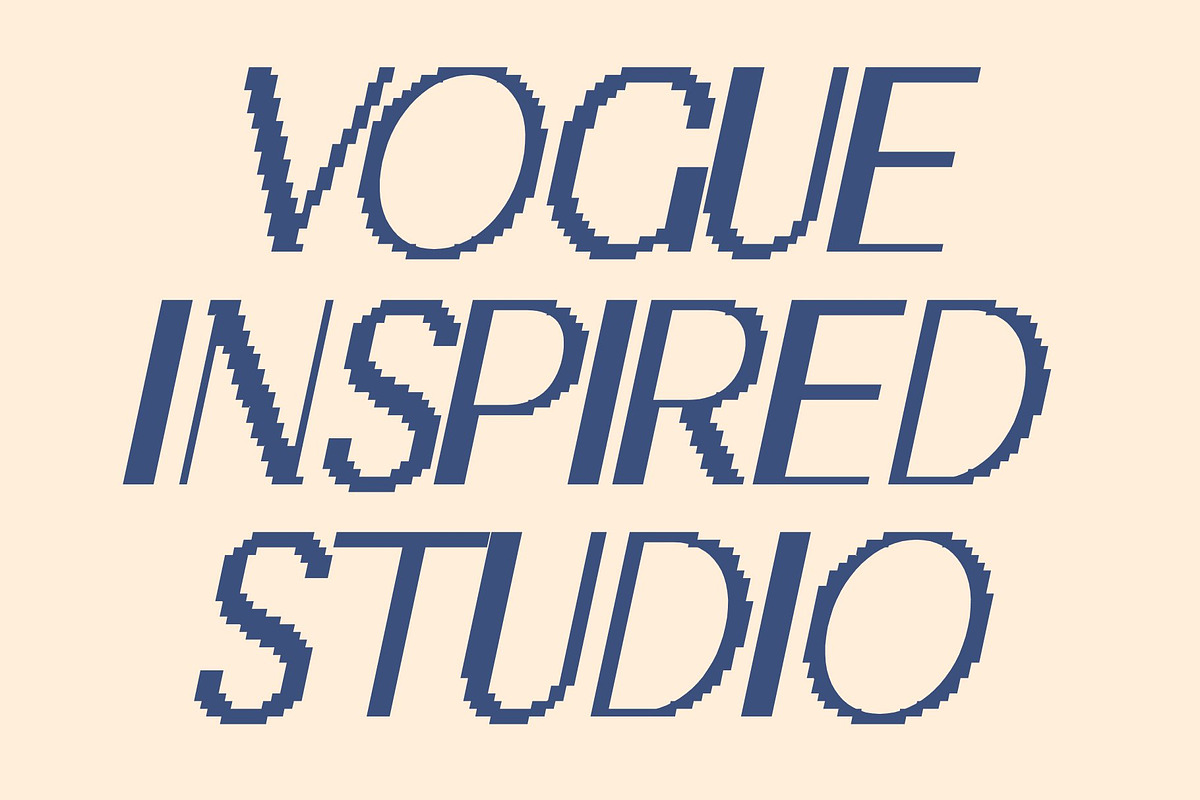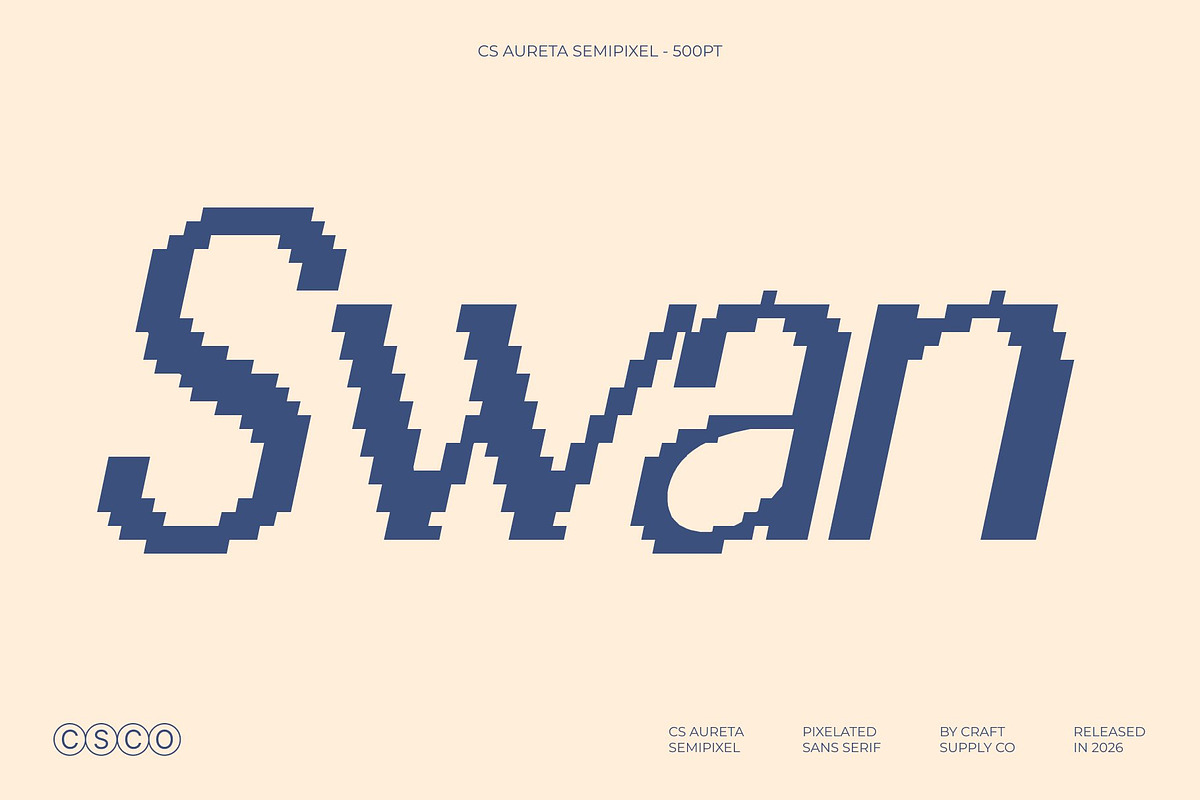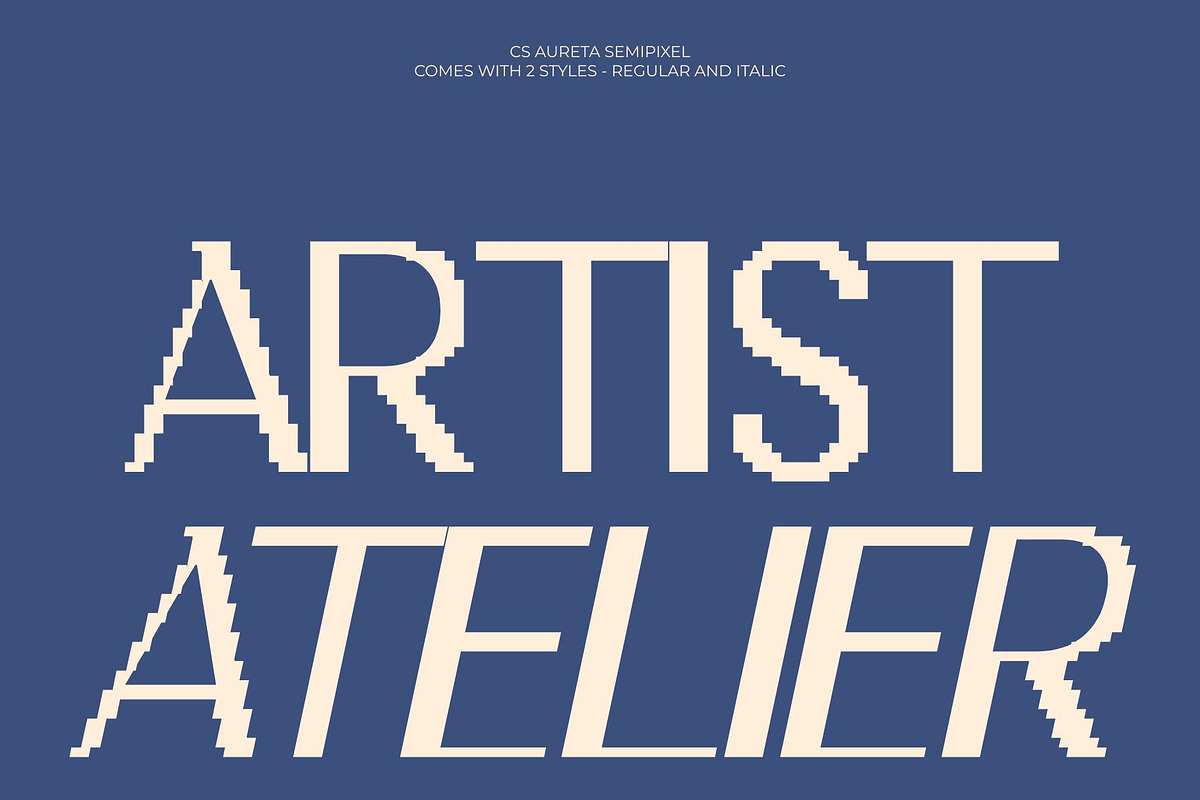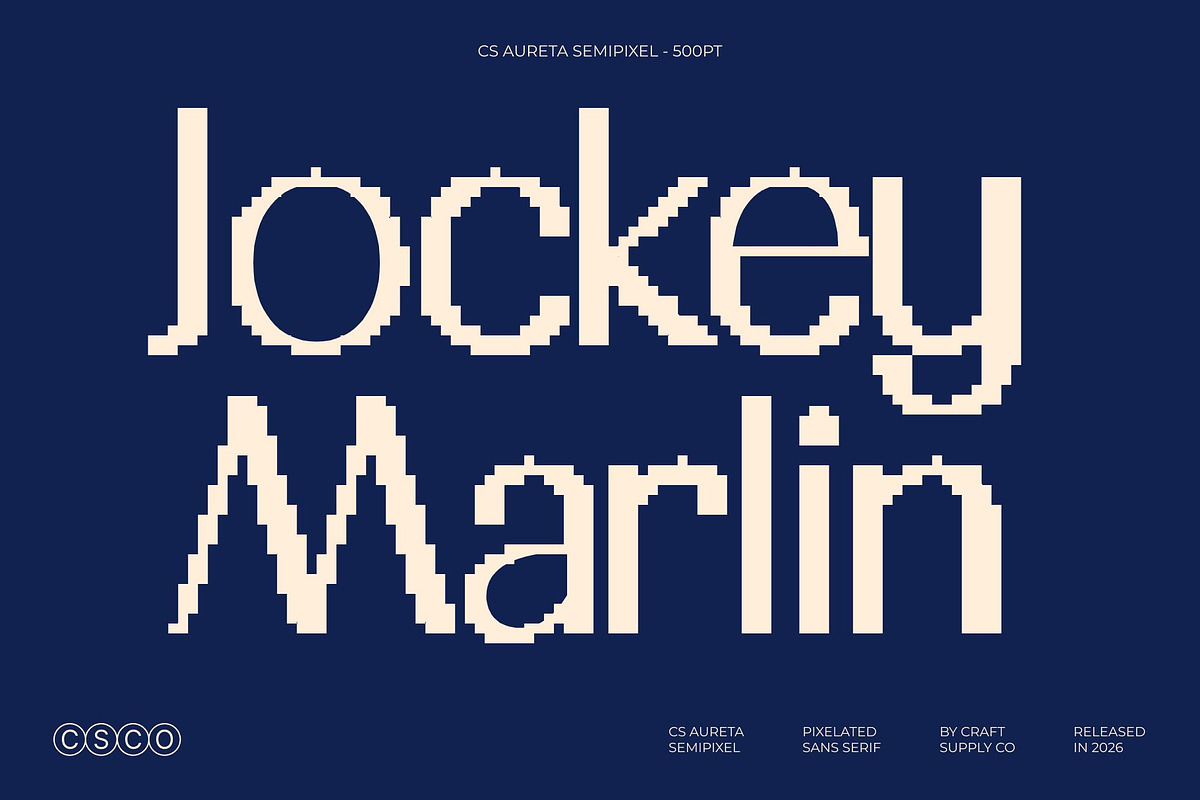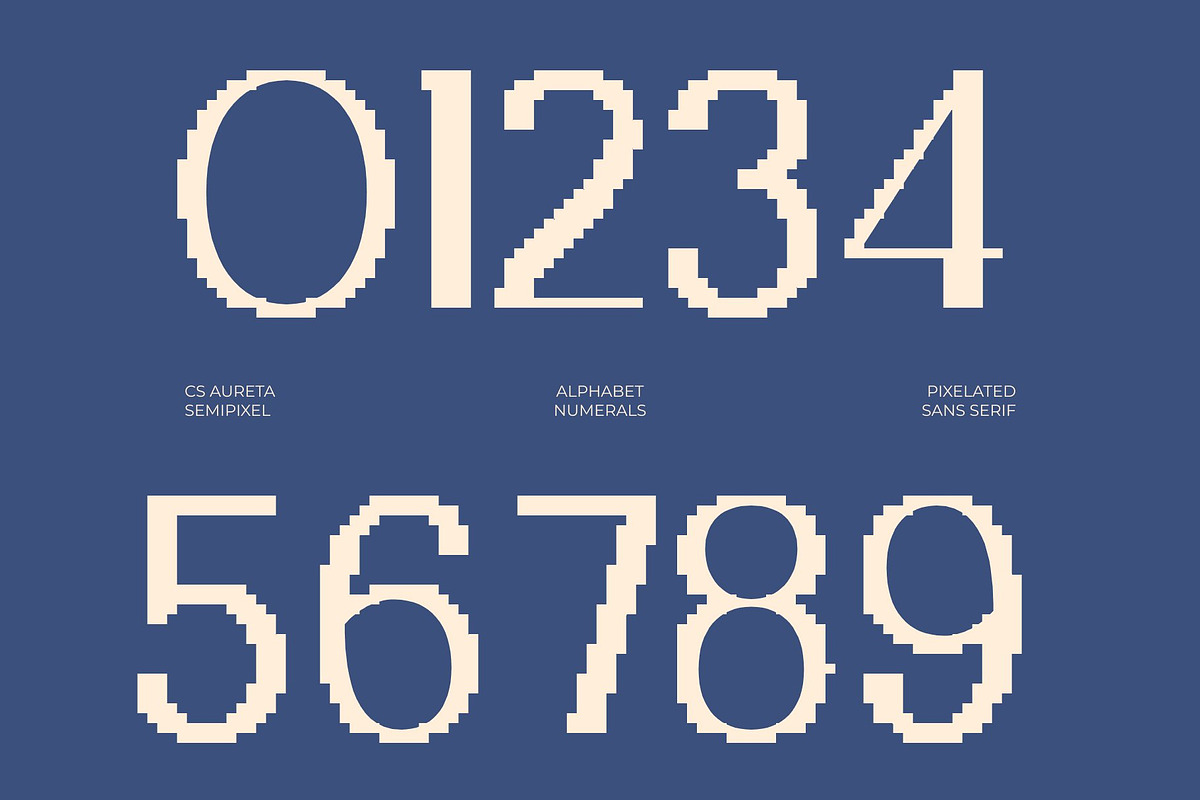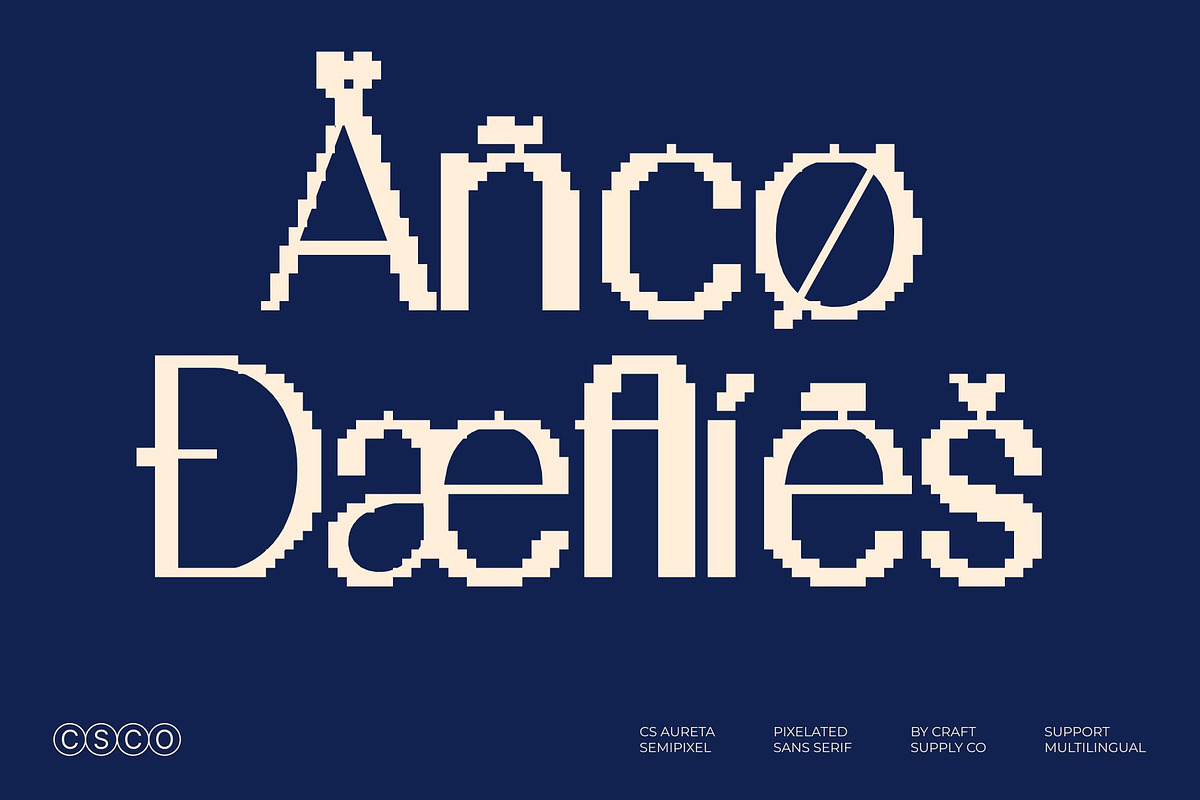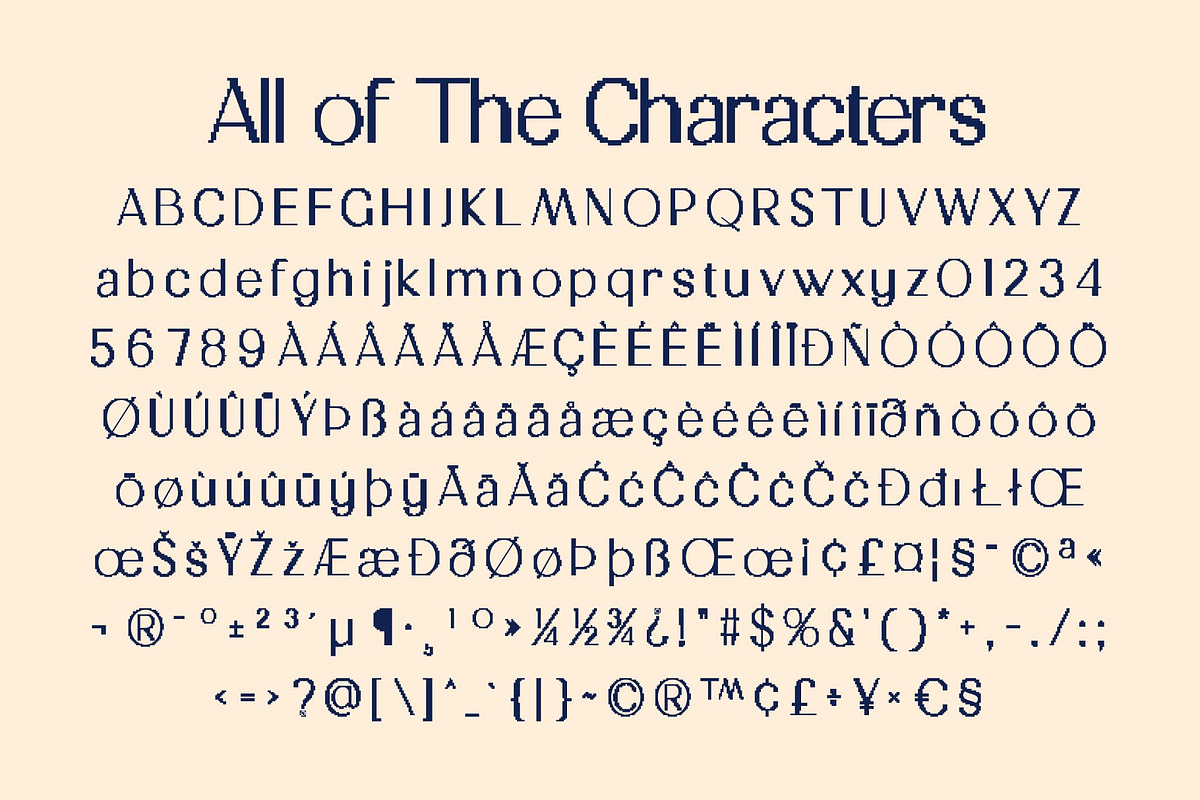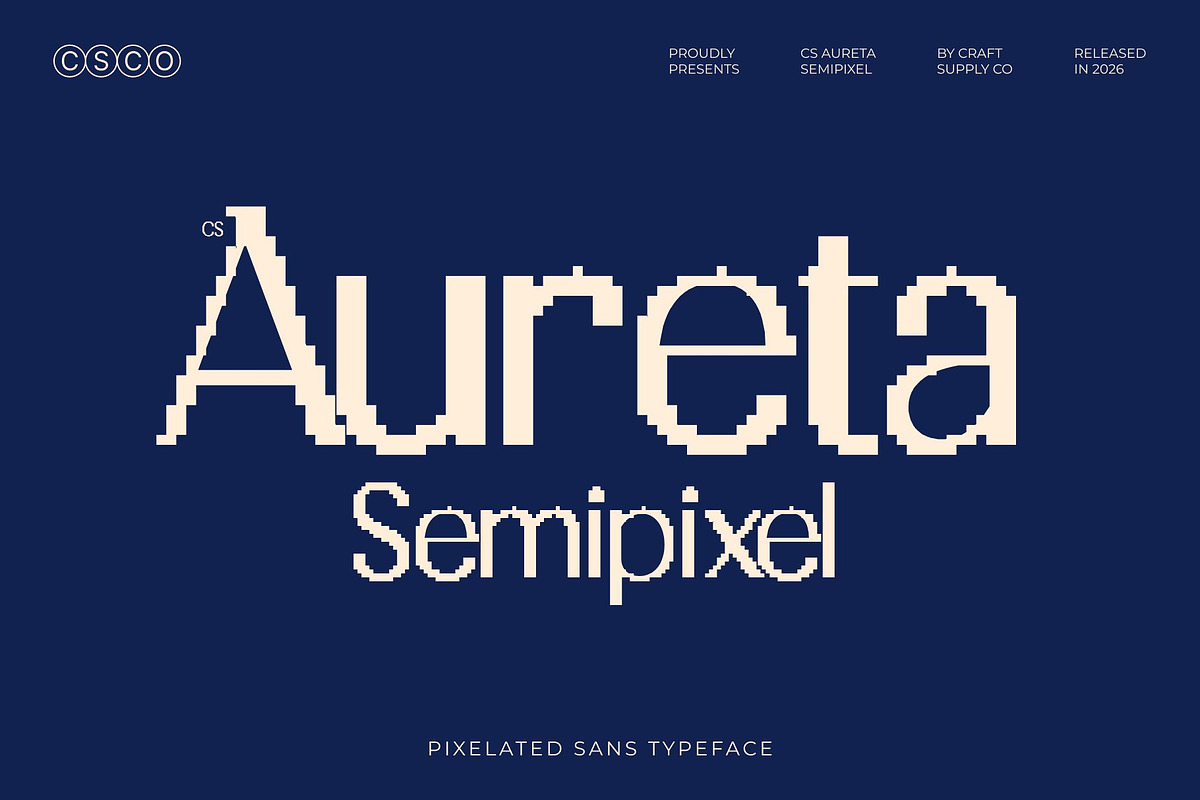
CS Aureta Semipixel
CS Aureta Semipixel – Modern Sans Serif Font: Where Futuristic Precision Meets Smooth Elegance
Pixel-Inspired Geometry with Elegant Modern Curves This is a modern sans serif font that combines pixel-inspired square forms with smooth curves and refined contemporary details. Unlike traditional rigid pixel fonts, its semi-pixel construction creates a softer and more elegant appearance while still preserving a subtle digital aesthetic. The result is a typeface that feels futuristic, sleek, and highly readable.
Minimalist High-Tech Style with Modern Sophistication This font delivers a clean and professional visual identity perfect for modern digital design. Its balanced forms create a stylish rhythm that feels both technical and approachable, making it ideal for projects that require a high-tech appearance without sacrificing visual comfort.
Smooth Readability with Contemporary Versatility This font maintains excellent readability across digital and print applications. The fusion of pixel-based structure and flowing modern details allows the font to perform beautifully in user interfaces, branding systems, and creative visual compositions while retaining a polished futuristic personality.
Perfect for App UI, Streetwear, and Digital Branding This font perfect for app UI elements, streetwear labels, tech branding, gaming visuals, digital posters, and contemporary creative projects that need to look futuristic yet easy to read. Its semi-pixel forms and elegant minimalist style make it ideal for logos, interfaces, packaging, and modern promotional materials.